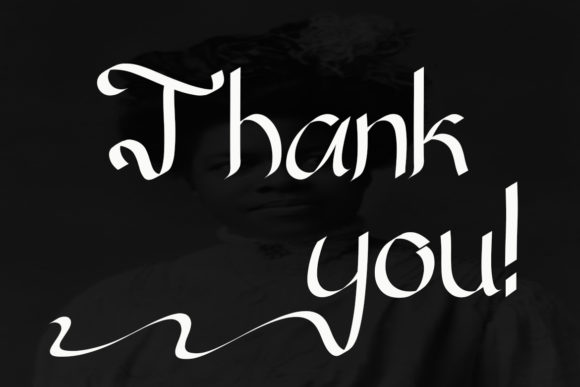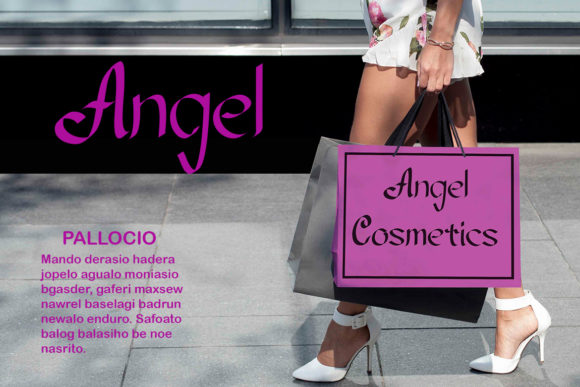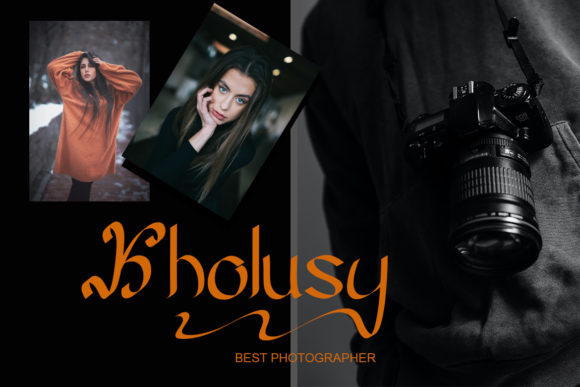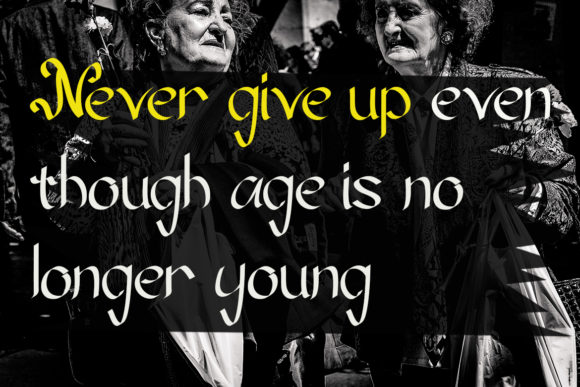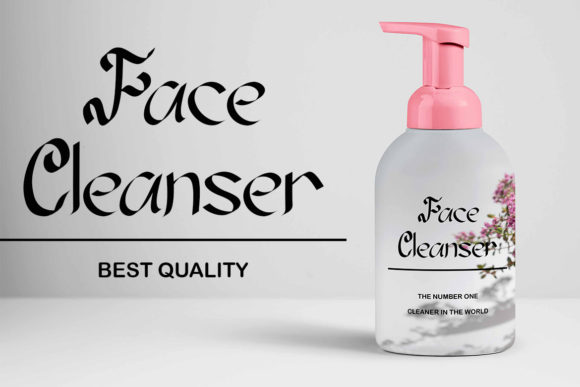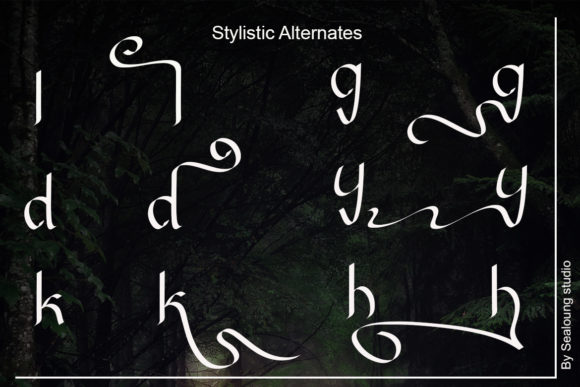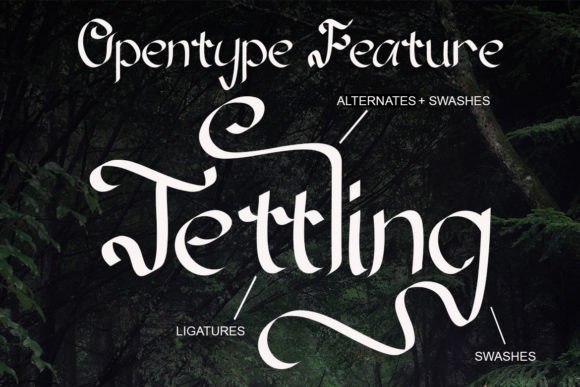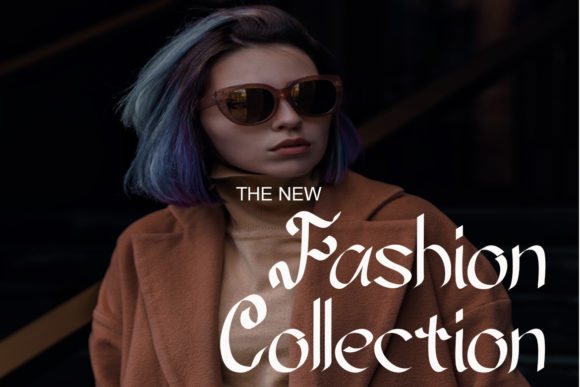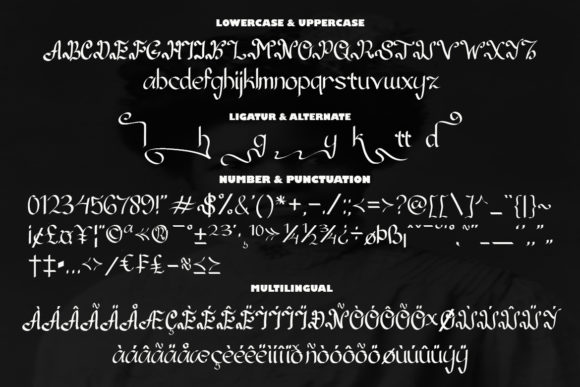
Aulidah Font
About Aulidah Font
Aulidah feels elegant and modern. This stunning handwritten font is a stylish homage to classic calligraphy. It features a varying baseline, smooth lines, gorgeous glyphs and stunning alternates.